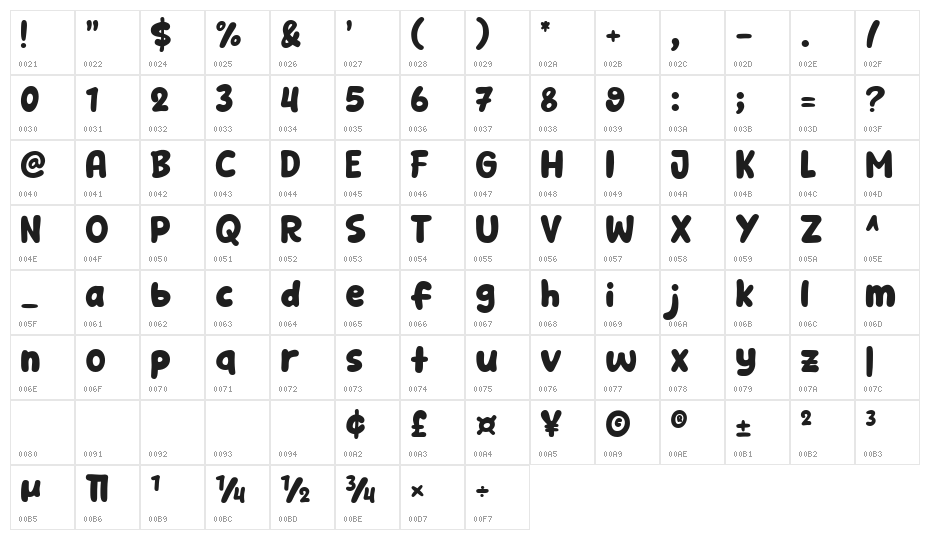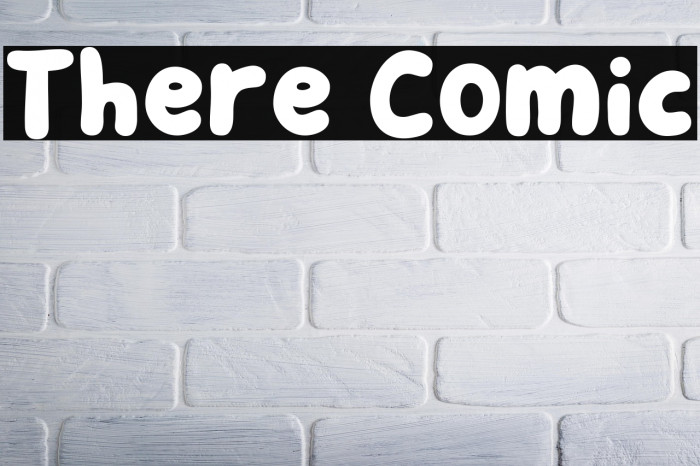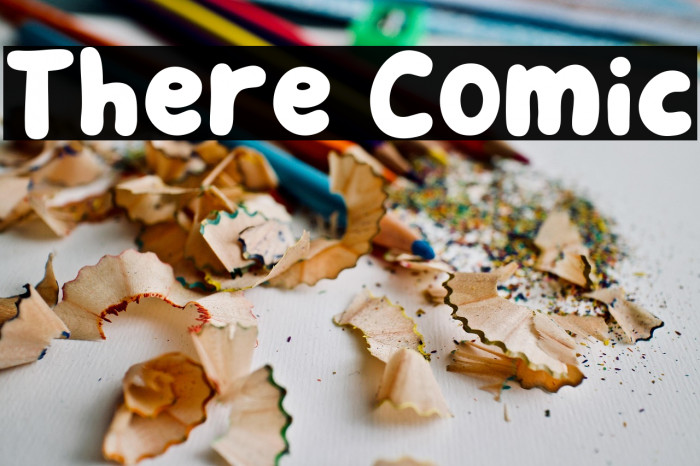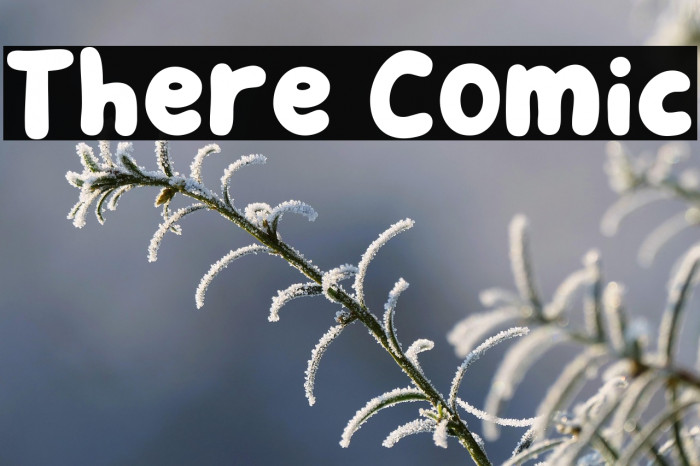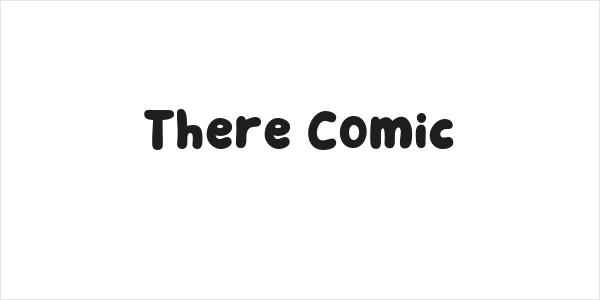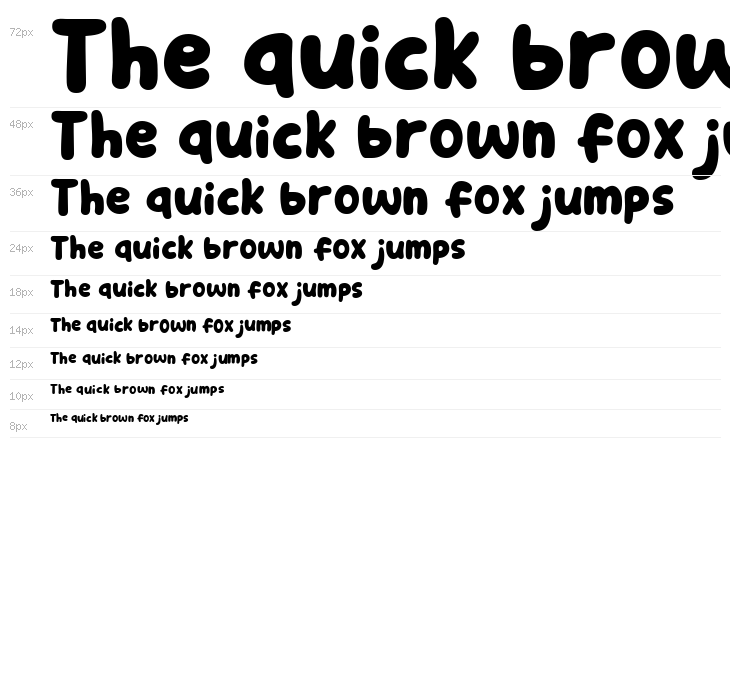
There Comic Font
There Comic Description
This playful and bold font features rounded, bubbly characters that exude a sense of fun and whimsy. The letters are thick and uniform, with a consistent stroke width that gives them a cartoonish appearance. The uppercase and lowercase letters maintain a cohesive style, with slightly exaggerated curves and a friendly demeanor. The numbers and special characters follow the same playful design, making the font suitable for creative and informal projects. Its distinct style is perfect for capturing attention and conveying a lighthearted tone.
| Overall Style | Playful |
| Proposed Projects | Ideal for children's books, comic strips, playful branding, and party invitations. |